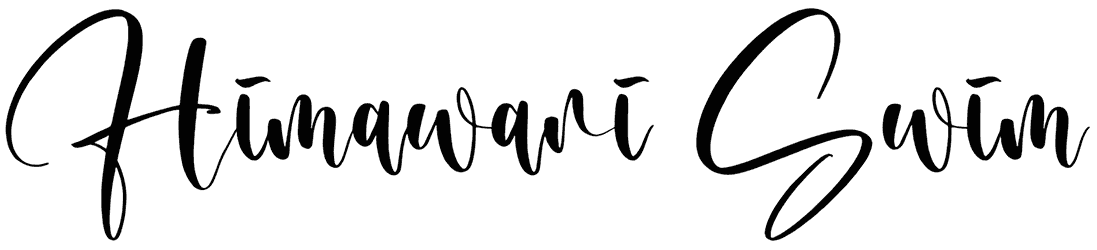
Himawari Swim Font
Create a beautiful and unrivaled design with stylish and elegant words. This calligraphy font, which is called Himawari Swim, consists of smooth and curvy letters and reflects a classic vibe. With A-Z characters, this handwritten font will work as a salient item for a lot of designs, namely flyers, business cards, planners, and more of the same.